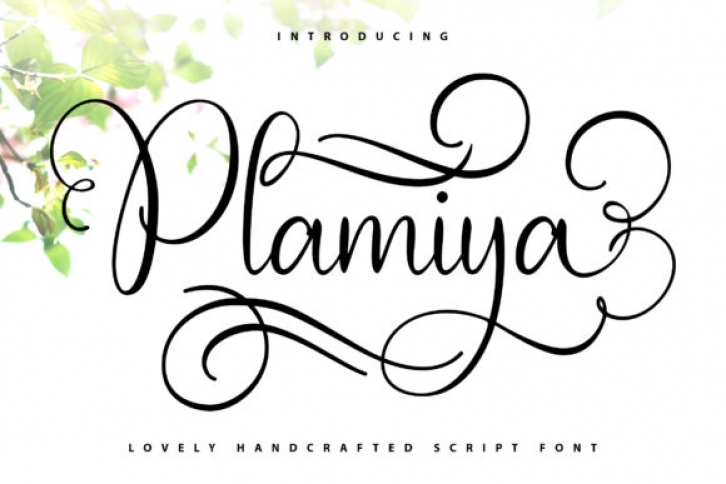
Plamiya is an exquisite handwritten font, designed to easily become a true favorite. It looks stunning on wedding invitations, thank you cards, quotes, greeting cards, logos, business cards and every other design which needs a handwritten touch.